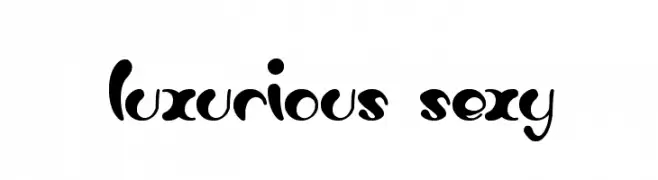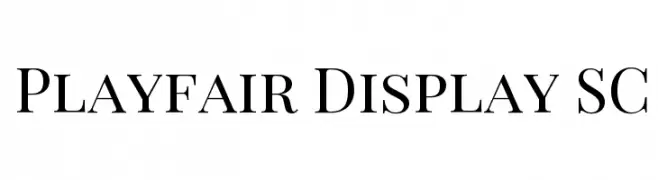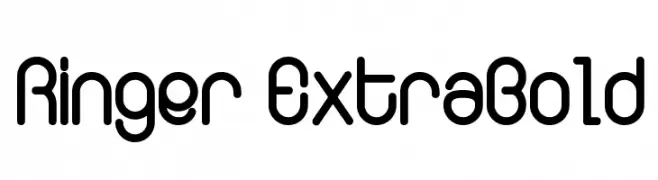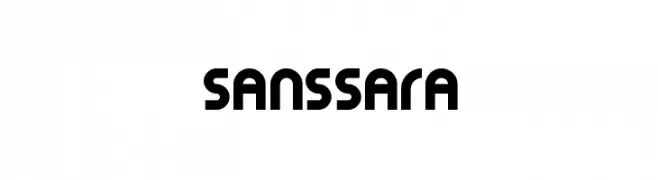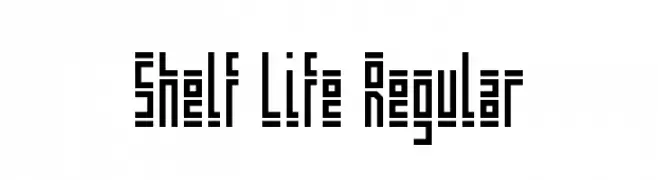
A bold, rounded font with a modern and playful aesthetic.
A bold, geometric font with clean, rounded edges and a modern aesthetic.
A geometric, angular font inspired by runic alphabets with a modern edge.
A modern, abstract font with circular and symmetrical design elements.
A classic serif font with high contrast and elegant serifs.
A playful, bubble-like font with thick outlines and rounded characters.